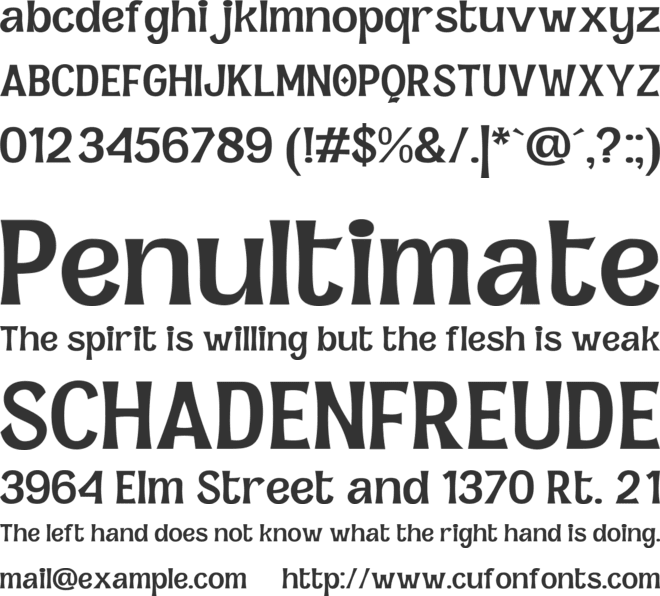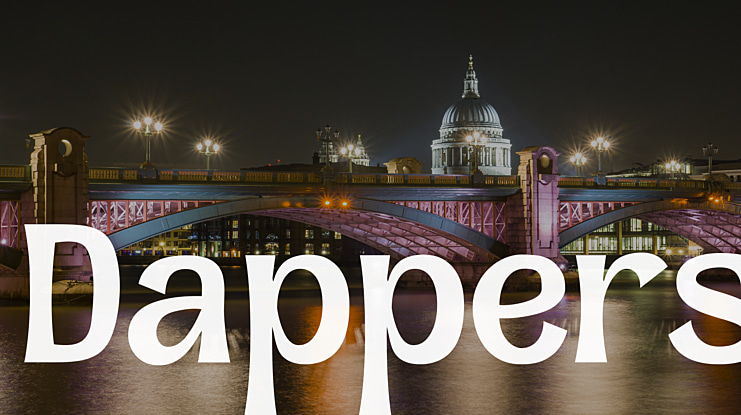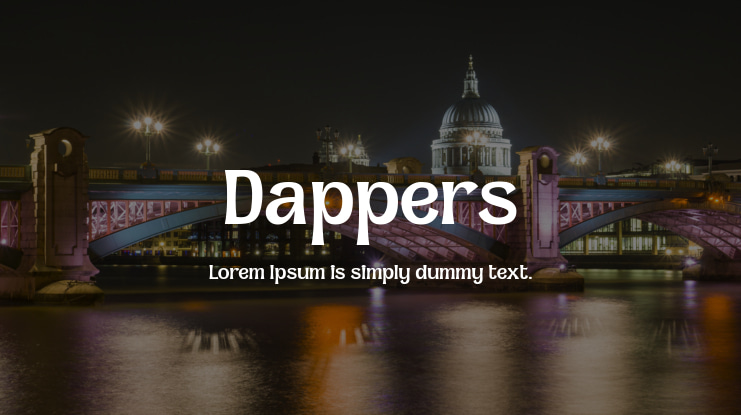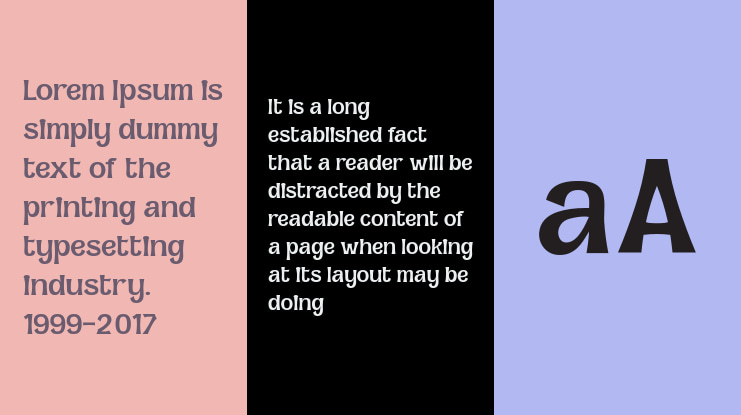
Dappers Font
Dappers is a vintage display serif font. featured with a lot of ligatures, dappers could be a nice choice for logo design and promotional design and any design project.
Dappers is Multilungual support (Latin Extended-A) covering Bosnian, Catalan, Czech, Danish, German, English, Spanish, Estonian, Finnish, French, Irish, Croatian, Hungarian, Icelandic, Italian, Lithuanian, Latvian, Maltese, Dutch, Norwegian, Polish, Portuguese, Slovak, Slovenian, Albanian, Swedish, Turkish